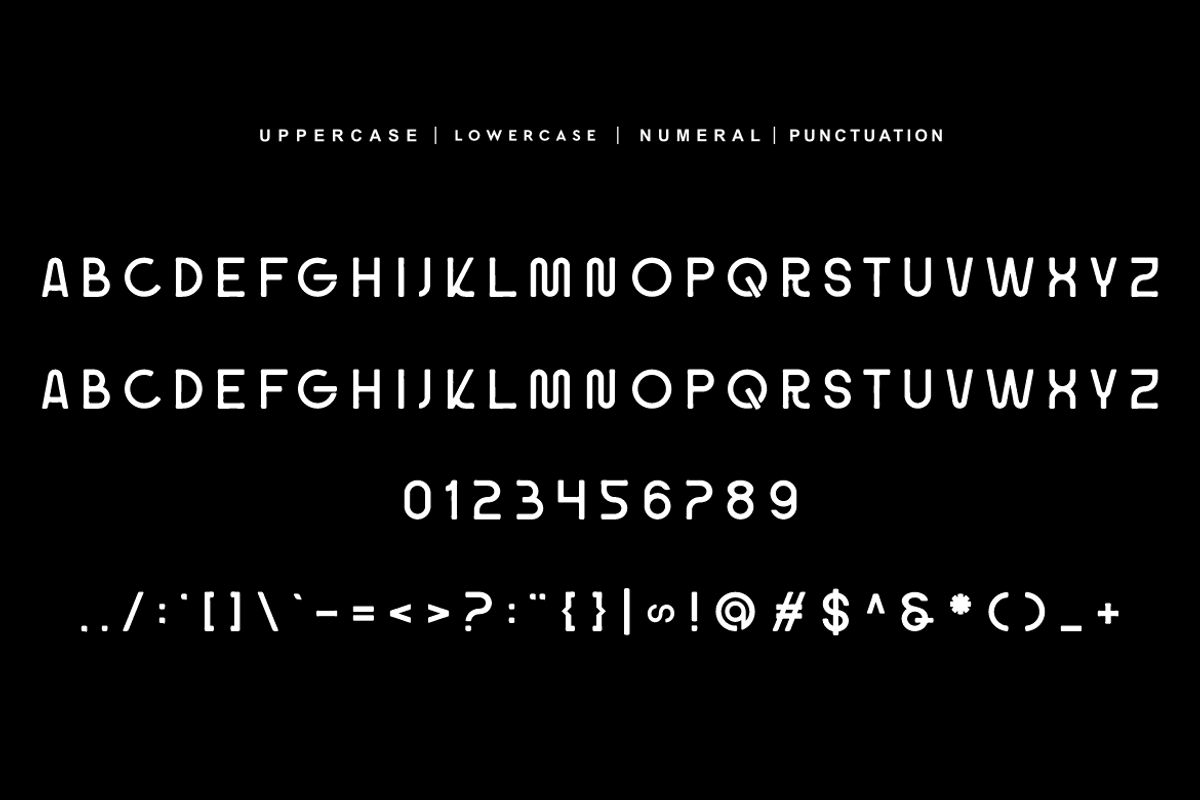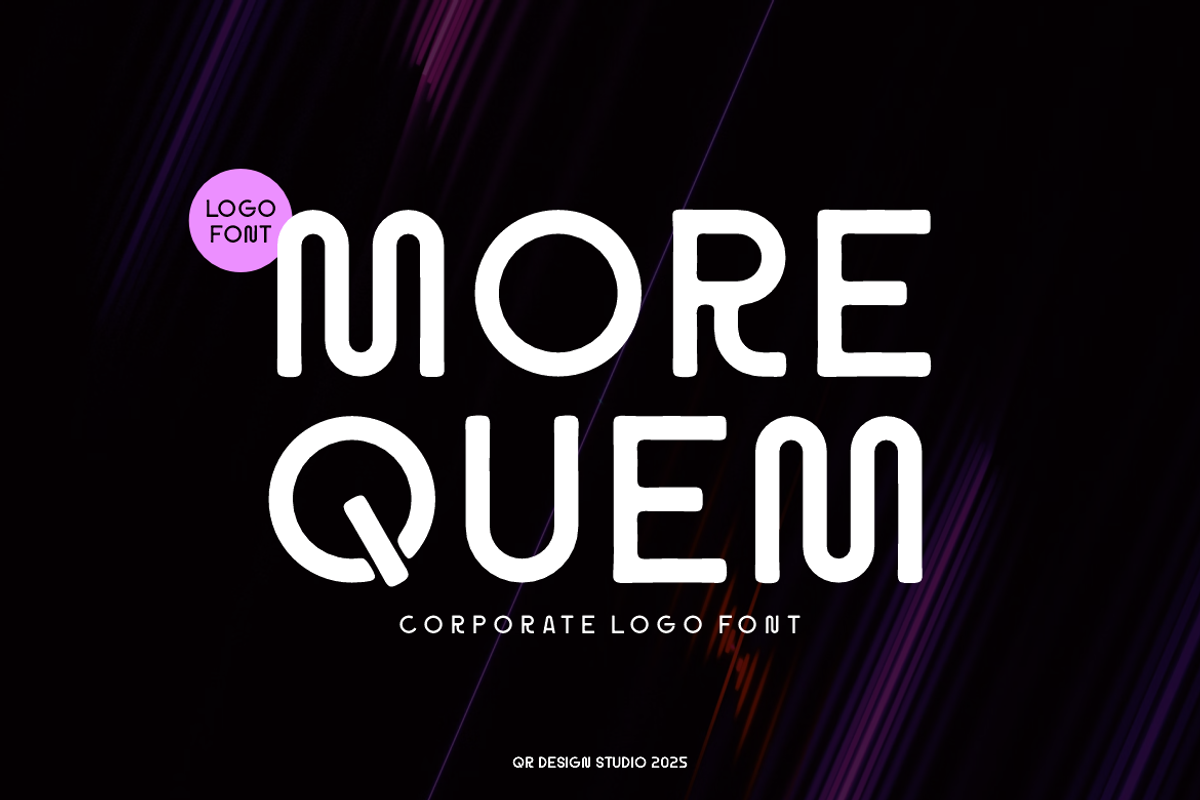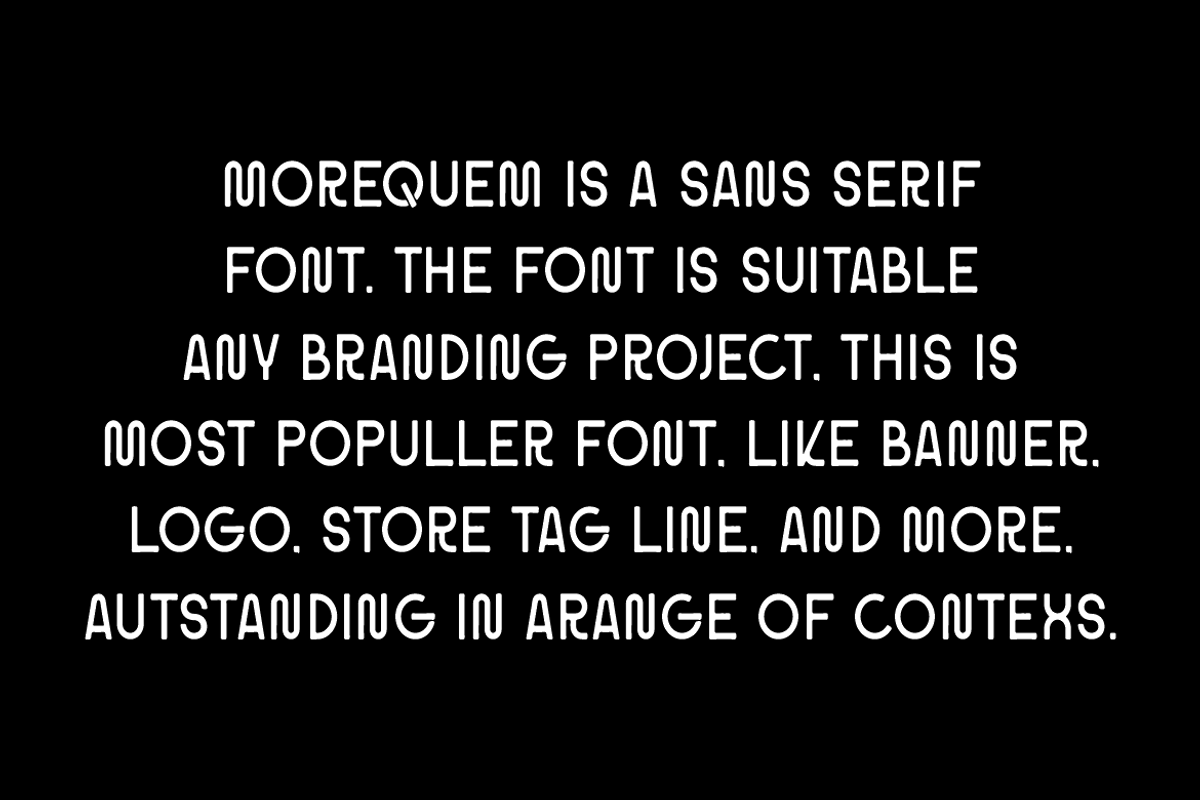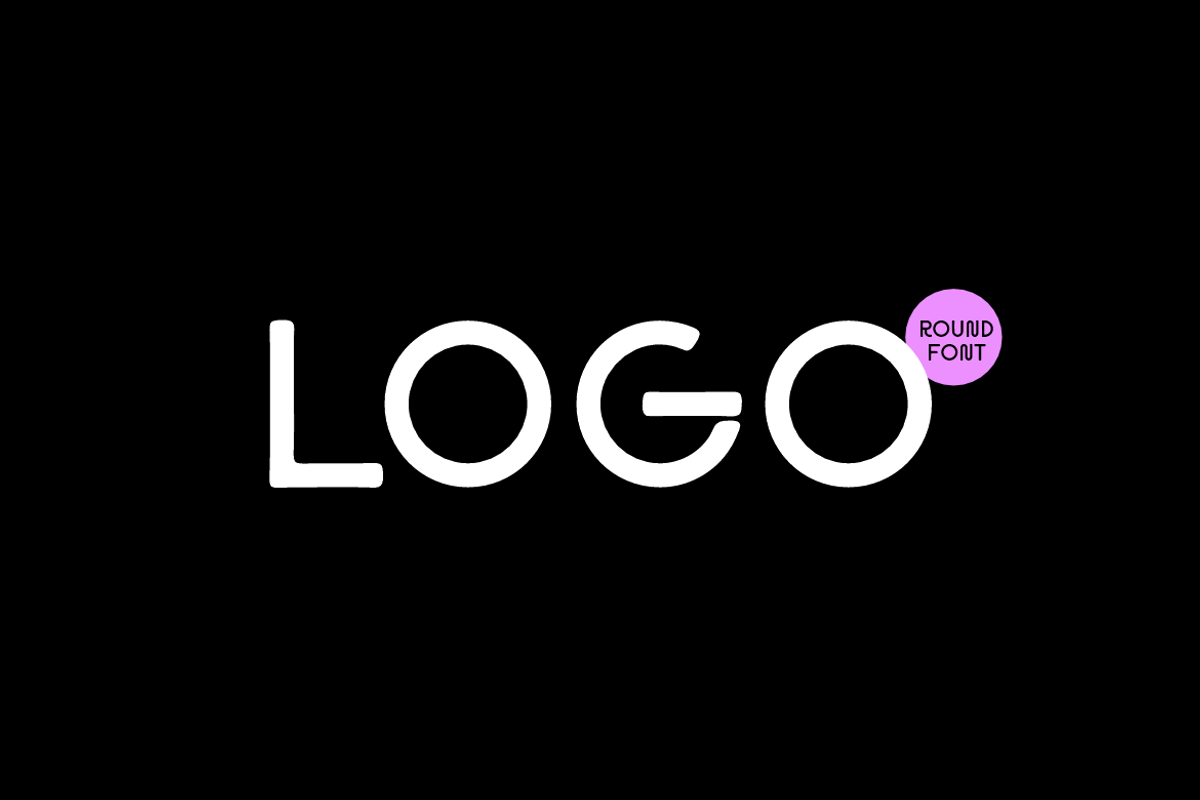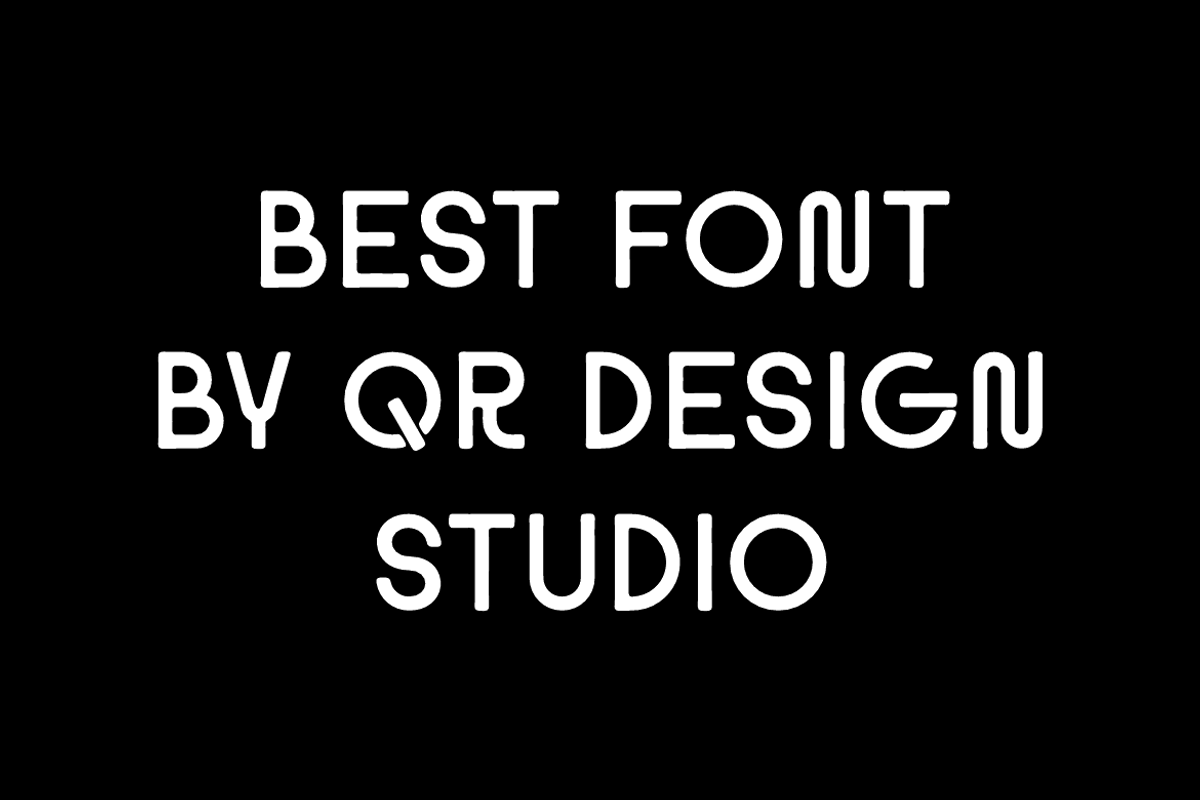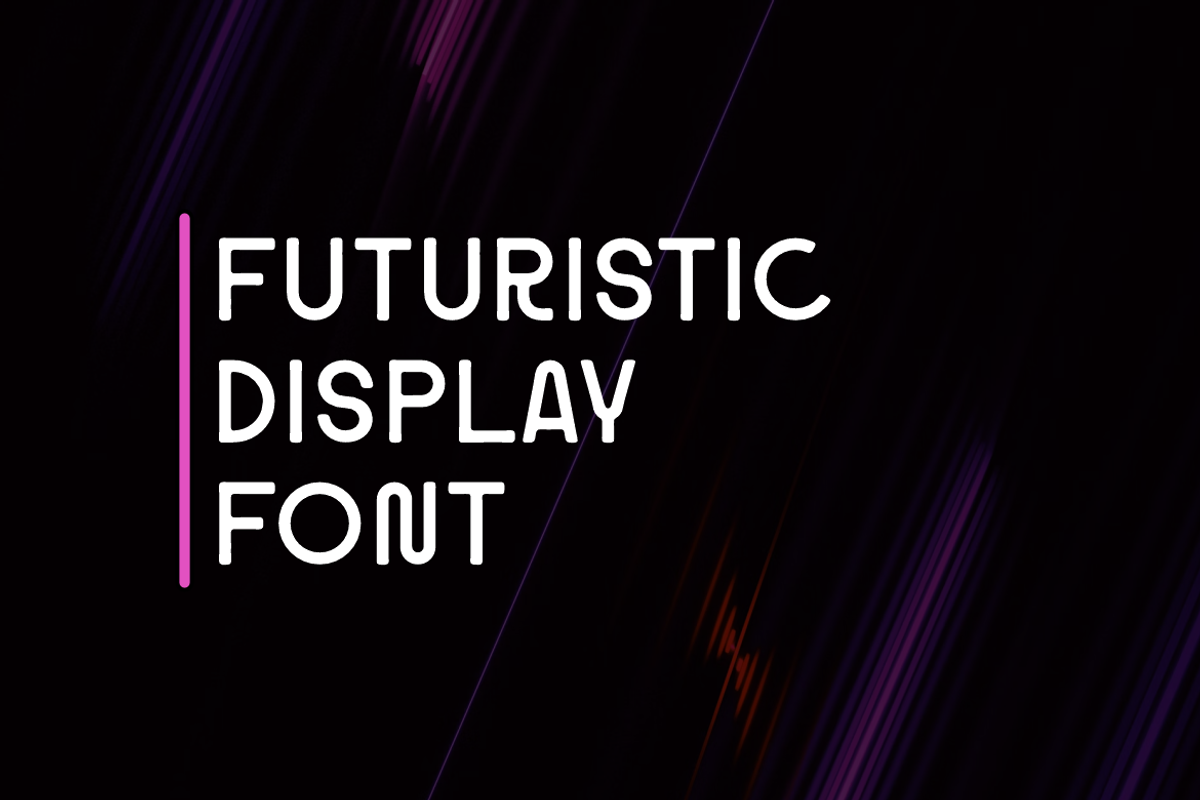
Morequem - Corporate Logo Font
Morequem Font is a sans serif and authentic display font. The font is suitable for any branding project like poster, logo, sport, and many more. Outstanding in a wide range of contexts.